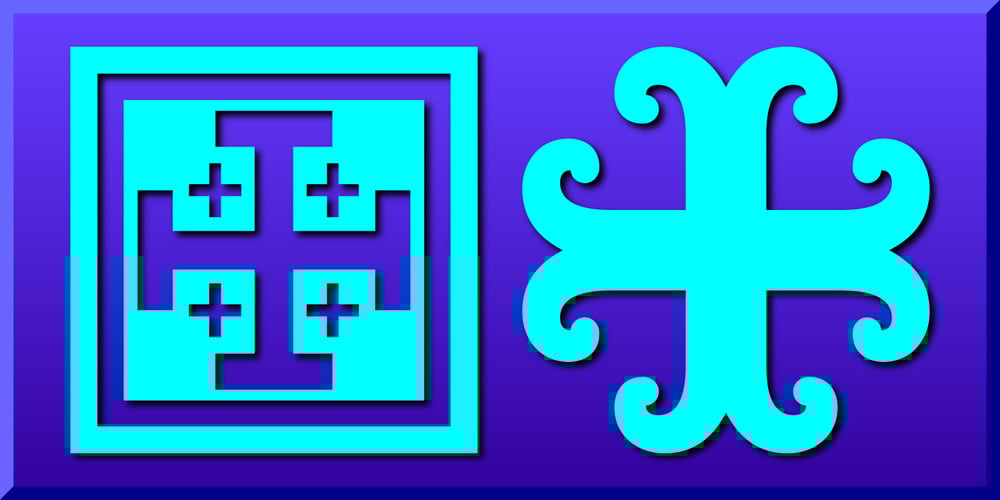
Cross Ornaments Font Family was designed by Gerald Gallo and published by Gerald Gallo. Cross Ornaments contains 1 styles and family package options. The cross appears globally even reaching the remote corners of the earth. Primitive man used it as an emblem as did many following civilizations. Associated with reverence and spiritual power, the cross is represented in many forms. Cross Ornaments contains a total of 106 ornaments.